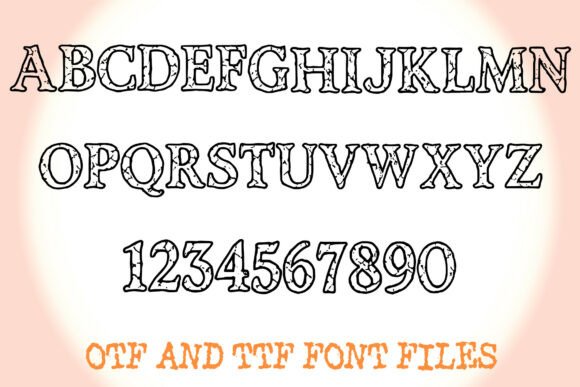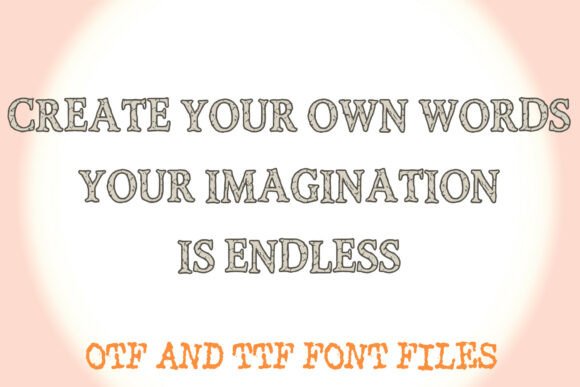
Uncovering the Secrets of the Past: Introducing the Carved Roman Font
As a designer, have you ever been browsing through an old antique shop, running your fingers over the weathered surfaces of ancient artifacts, and feeling an overwhelming sense of wonder and curiosity? For me, that moment sparked an idea – to create a font that captures the essence of classical Roman engravings, transporting us back in time to an era of grandeur and mystique.
The result is the Carved Roman Font, a stone-textured serif font that embodies the spirit of history and strength. With its rugged, chiseled edges, this font is perfect for museum graphics, historical fiction titles, archeology branding, or fantasy themes. Its timeless appeal makes it a valuable addition to any designer’s toolkit, allowing them to tap into the rich heritage of the past and bring it to life in their work.
- Font Family: Carved Roman
- Unique Characteristics: This font features a distressed, hand-carved aesthetic with subtle texture and irregularities, giving it a unique and vintage look
Overall, I found the Carved Roman Font to be a solid choice for projects where a traditional, classic feel is desired. Here are some of its standout features: ✨
- Beautifully crafted letterforms with intricate details and subtle texture.
- Highly legible even at smaller font sizes, making it suitable for body text.
- A wide range of weights and styles to choose from, ensuring versatility in design applications.
However, I did encounter some limitations that may impact its use in certain projects: ⚠️
- Lack of a clear, modern feel, which may not be ideal for contemporary or innovative designs.
- Some letterforms may appear dated or overly ornate to certain audiences.
- The font’s texture can sometimes make it difficult to achieve a clean, crisp look.
Overall, I’d recommend the Carved Roman Font for projects where a classic, traditional feel is essential. While it may not be the best fit for every design, its beauty and versatility make it a valuable addition to any font collection.
The Carved Roman Font is perfect for:
- Historical and vintage-themed designs.
- Any design where a classic, timeless look is desired.